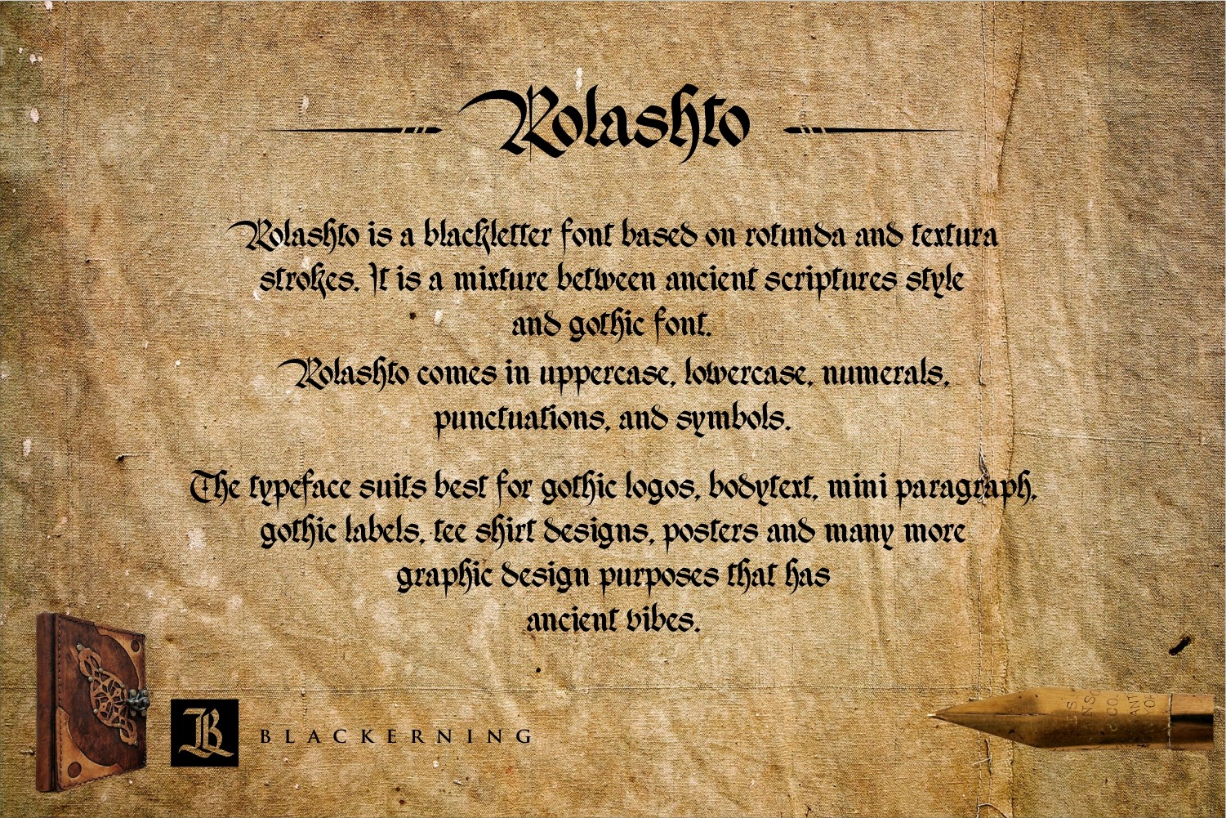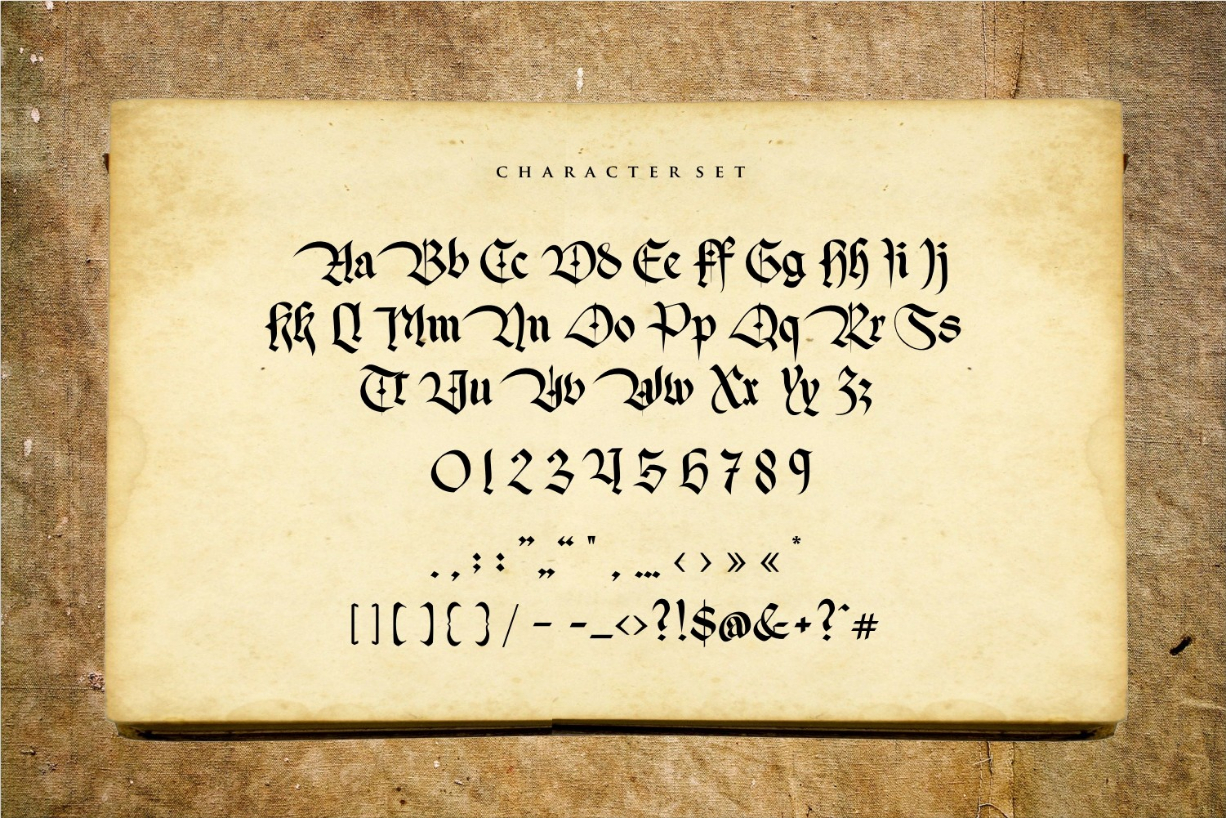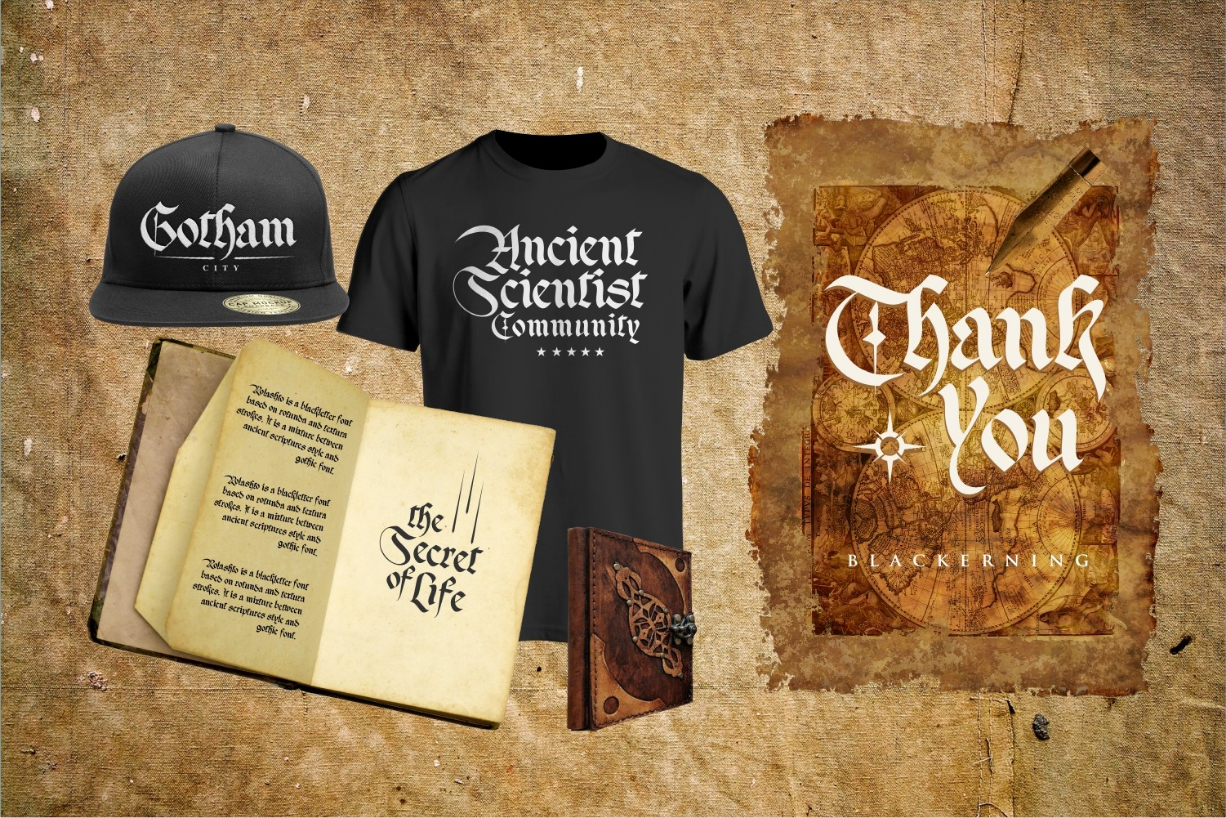
Rolashto Font
About Rolashto Font
Rolashto is an elegant and distinct blackletter font. Expertly designed to make your creation look out of this world, this font will look gorgeous on a variety of ideas.